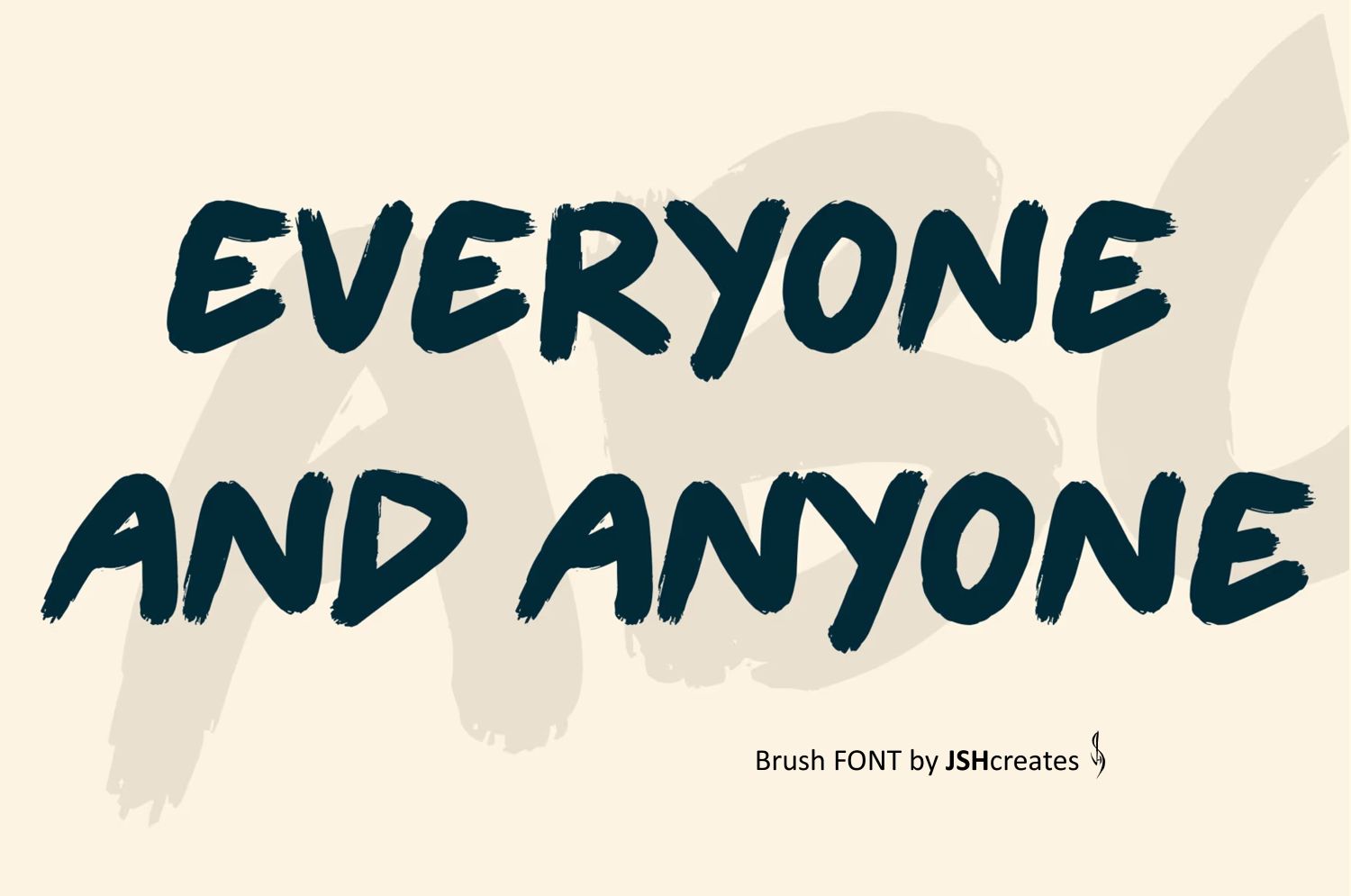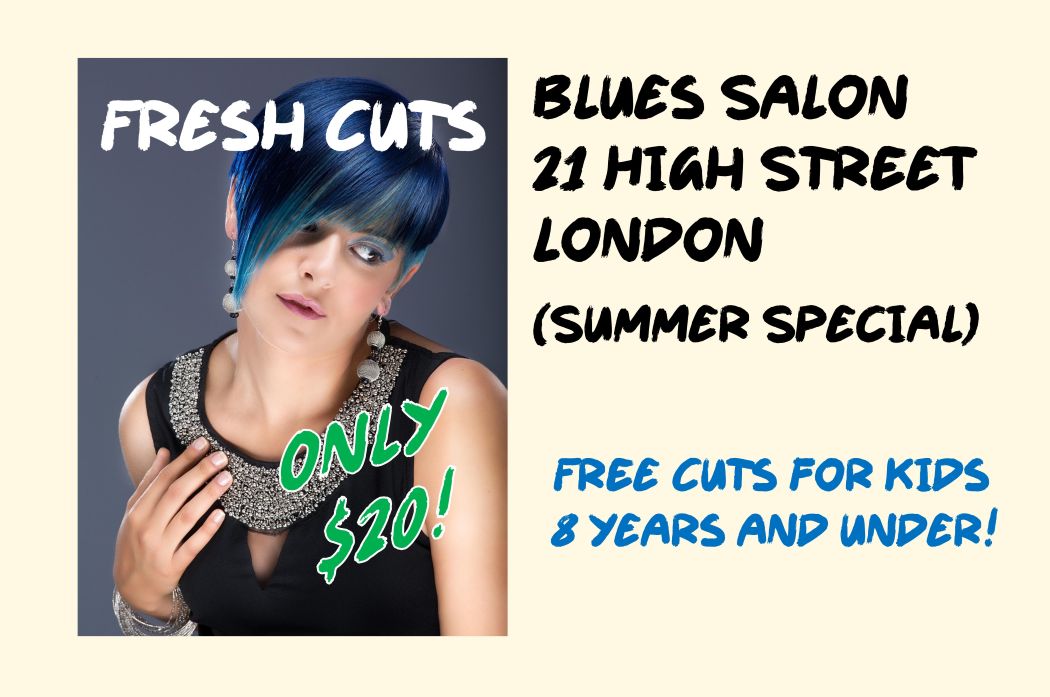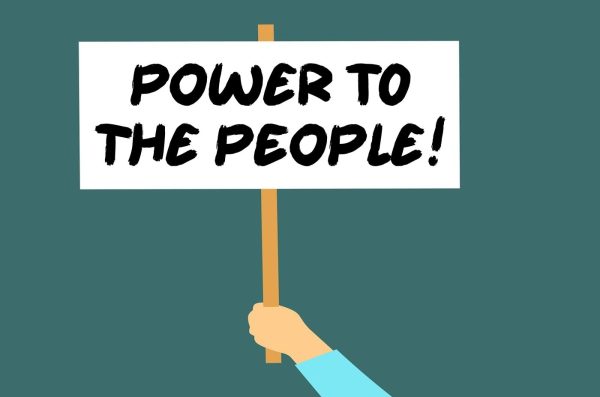
Everyone and Anyone Font
Handwritten brush font. “Everyone and Anyone”. Perfect for advertising and display purposes, including banners, book covers, shirts, posters, logos and much more!
This is an All CAPS font, including numbers, characters and punctuation.